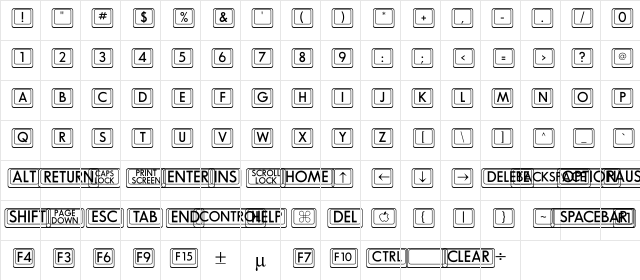
DexisDingbatsTwoSSi Regular
Design Context for DexisDingbatsTwoSSi Typeface
DexisDingbatsTwoSSi offers clean, dependable letterforms without strong stylistic allegiance, making it a practical choice for designers who need flexibility.